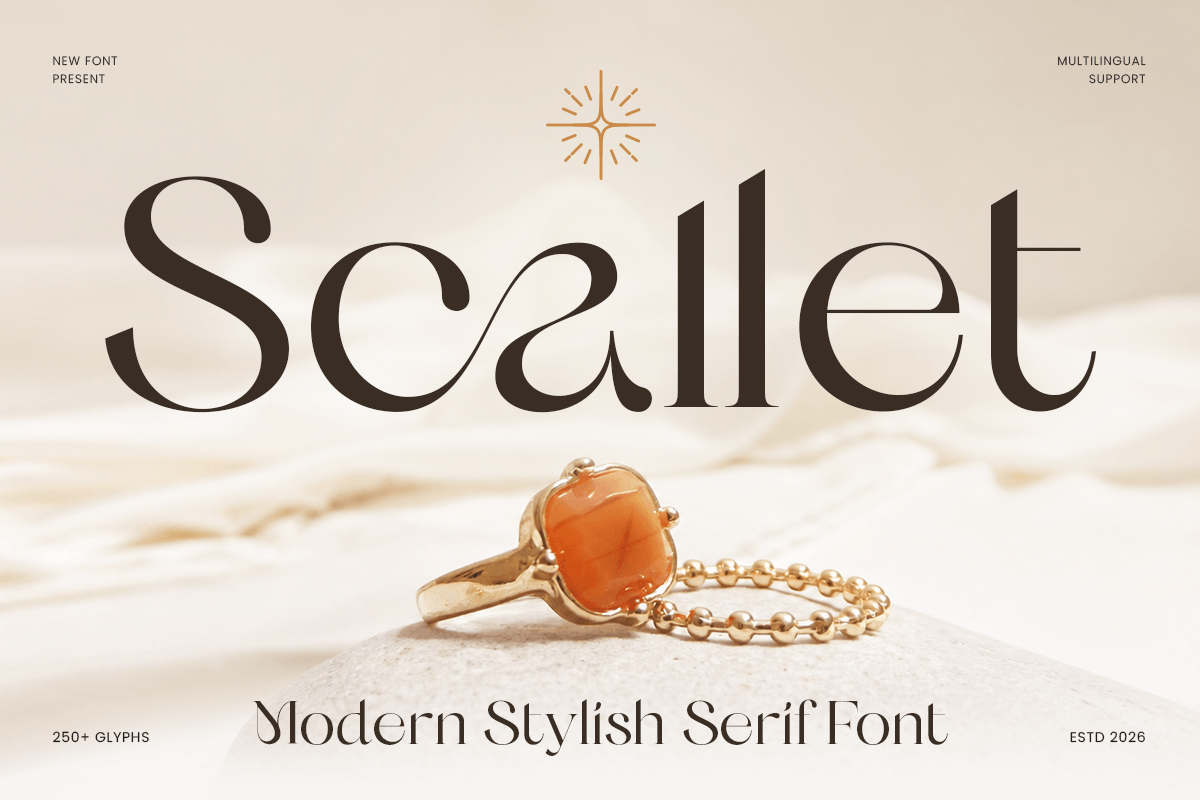
Scallet
-Serif FontScallet - Serif Font
Scallet is a modern stylish serif font designed to bring elegance, confidence, and contemporary character to your creative projects. With refined serif details, balanced proportions, and a sophisticated visual style, this typeface is perfect for luxury branding, logo design, fashion editorials, packaging, and premium visual identities.
Crafted for designers who seek a stylish yet timeless typographic solution, Scallet combines classic serif elegance with modern aesthetics. Its graceful letterforms create a polished and memorable appearance, making it ideal for fashion labels, beauty brands, boutique identities, invitations, and high-end marketing materials.
Whether used for brand names, magazine headlines, product packaging, or elegant promotional designs, Scallet delivers a refined typographic presence across both print and digital media.
Scallet – Modern Stylish Serif Font Features
Modern serif design with stylish luxury character
Perfect for logos, branding, editorials, packaging, and premium designs
Elegant letterforms with refined proportions and strong readability
Ideal for fashion, beauty, lifestyle, wedding, and boutique industries
OpenType features for enhanced typographic styling
Create a sophisticated visual identity with Scallet – the perfect modern serif font for elegant branding, luxury logos, editorial layouts, and premium design projects. ✨